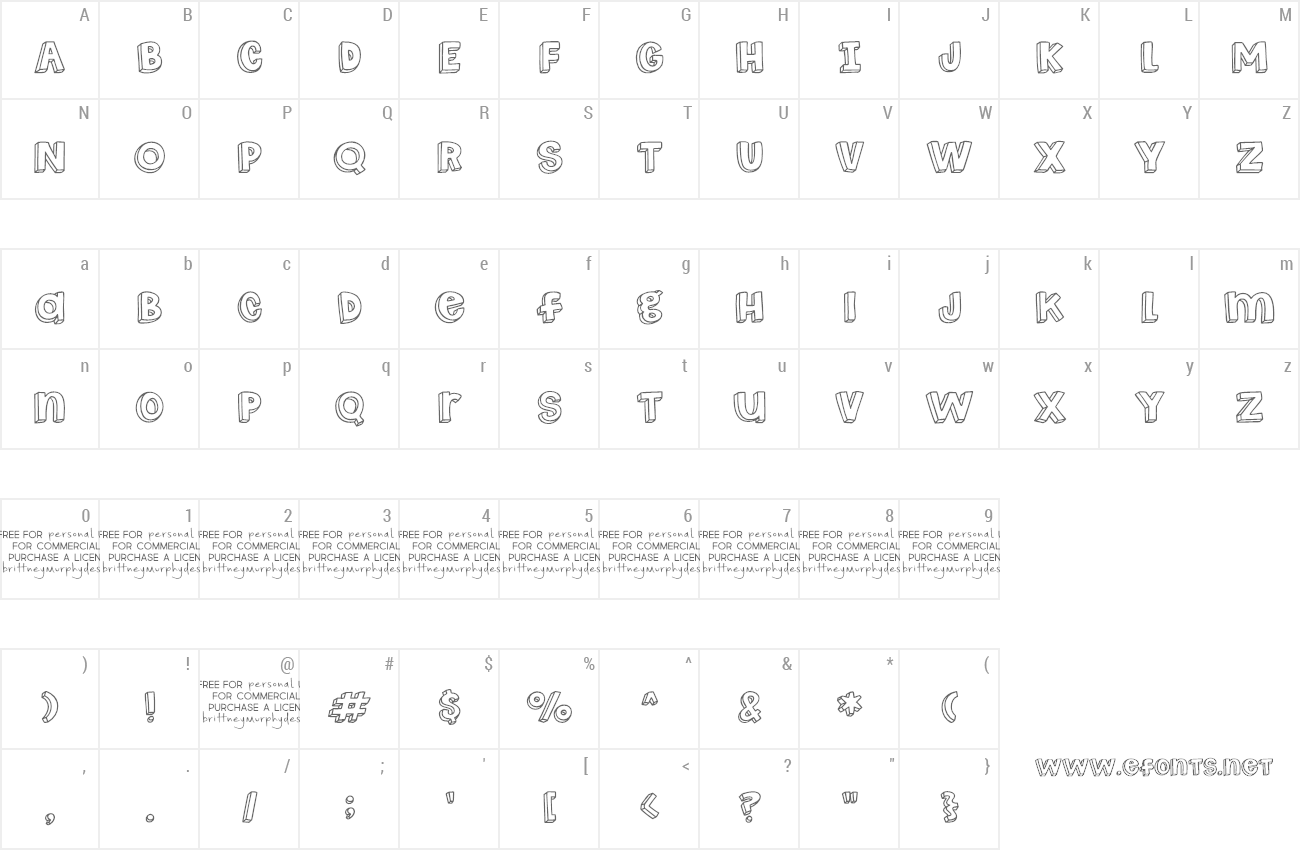
Preview and download Shortbread Cookies Font. Created by Brittney Murphy Design in Fancy Cartoon styles with Free for personal use license.
Shorbread Cookies is a fun handdrawn 3D font. Free for PERSONAL USE ONLY. For commercial use, please purchase a license: https://www.brittneymurphydesign.com/downloads/shortbread-cookies-font/ |